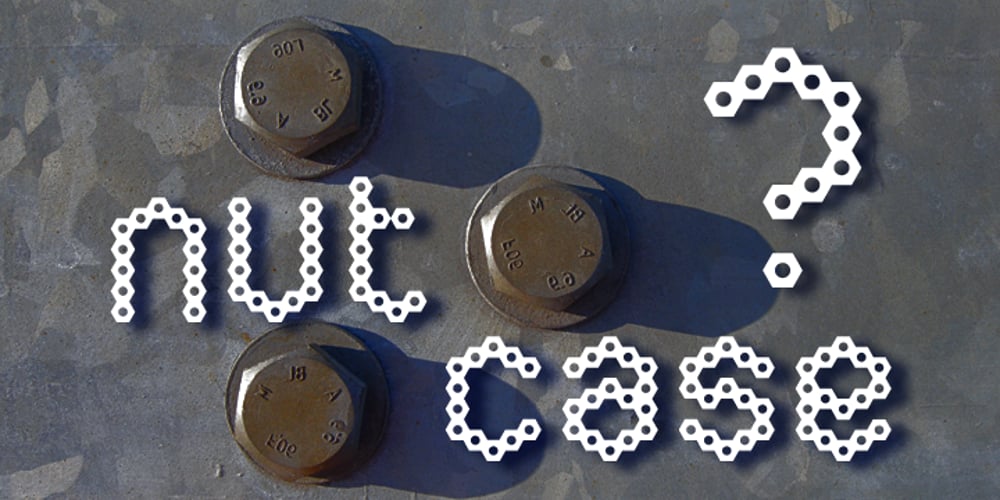
Nutcase Font Family was designed by James Marsh and published by ArtyType. Nutcase contains 1 styles and family package options. Nutcase is a perfect example of a font that principally designed itself. I created a hexagonal template (the most economical form in nature by the way) and took out the center to increase the decorative element. I played around with it, creating some pleasing characters at first but it soon became clear it would translate into a complete alphabet, so I set to work applying the idea to both upper and lower cases. It wasn’t all straight forward though, avoiding awkward characters and retaining legibility took a little perseverance but it eventually paid off. I thought of this primarily as a decorative display face but having tested it out, found it reads surprisingly well as body copy too.